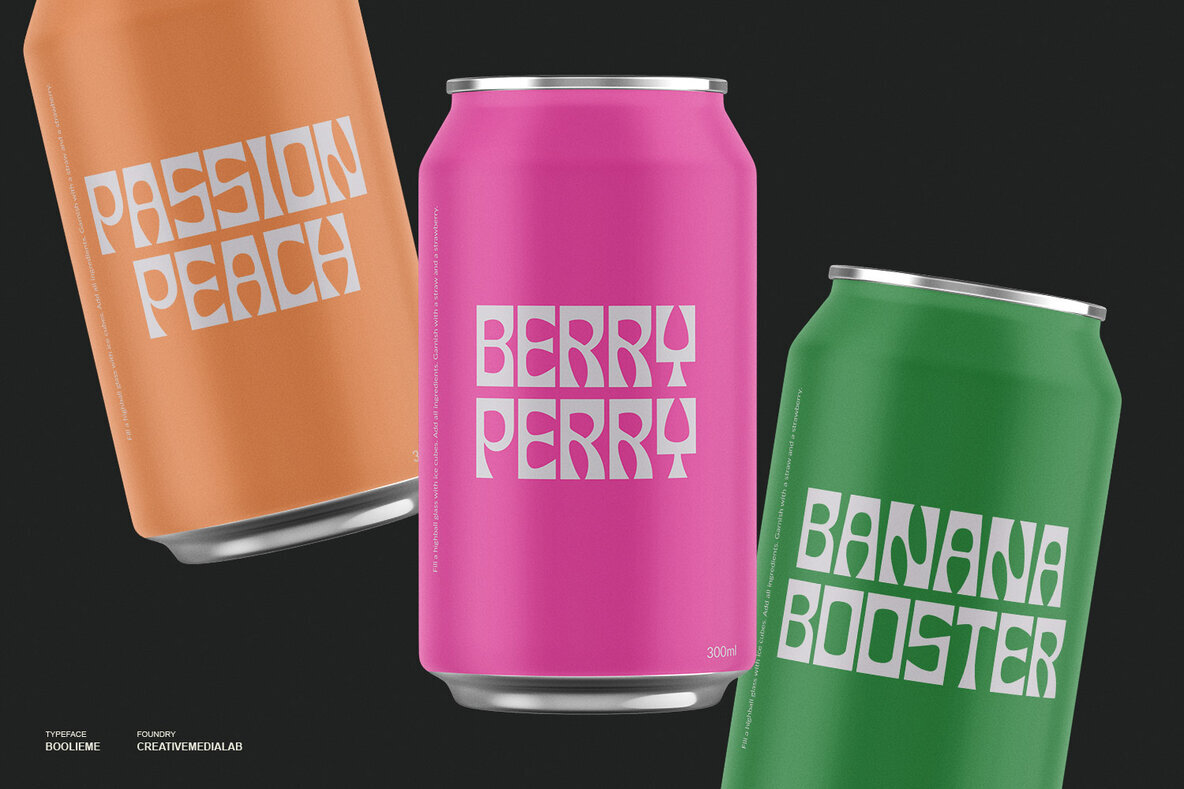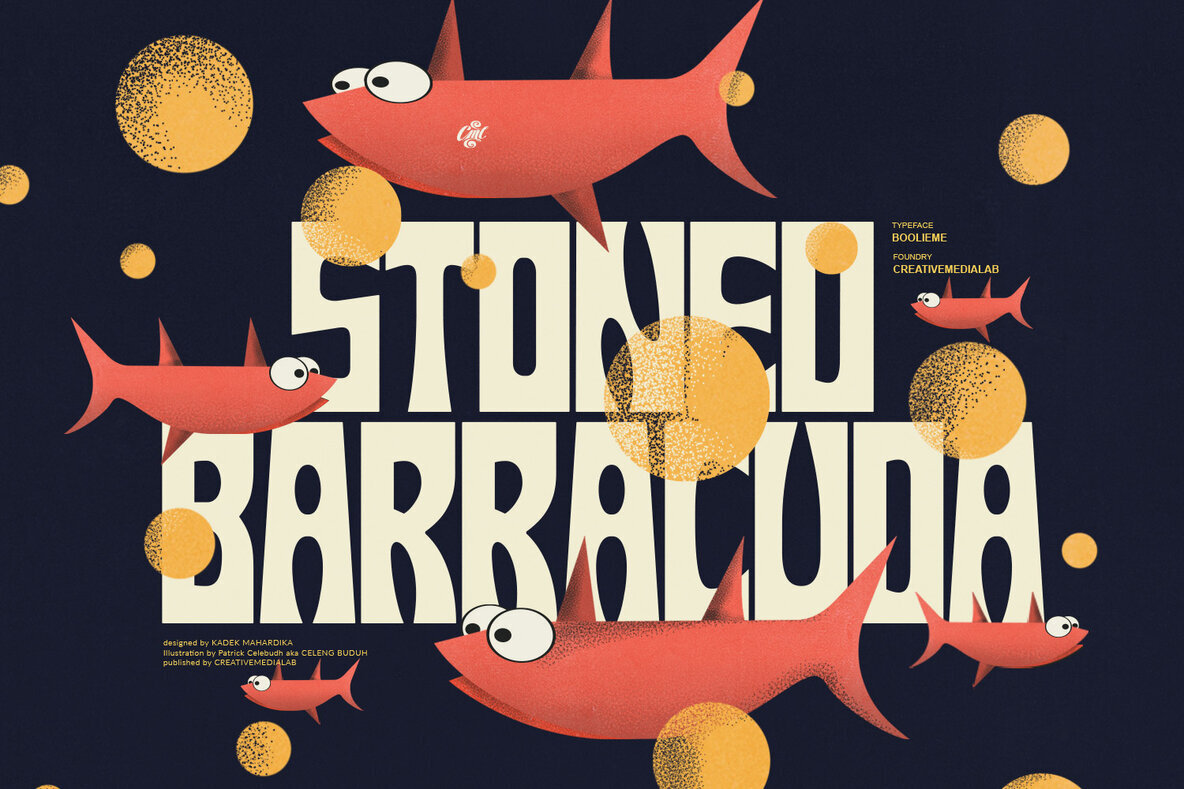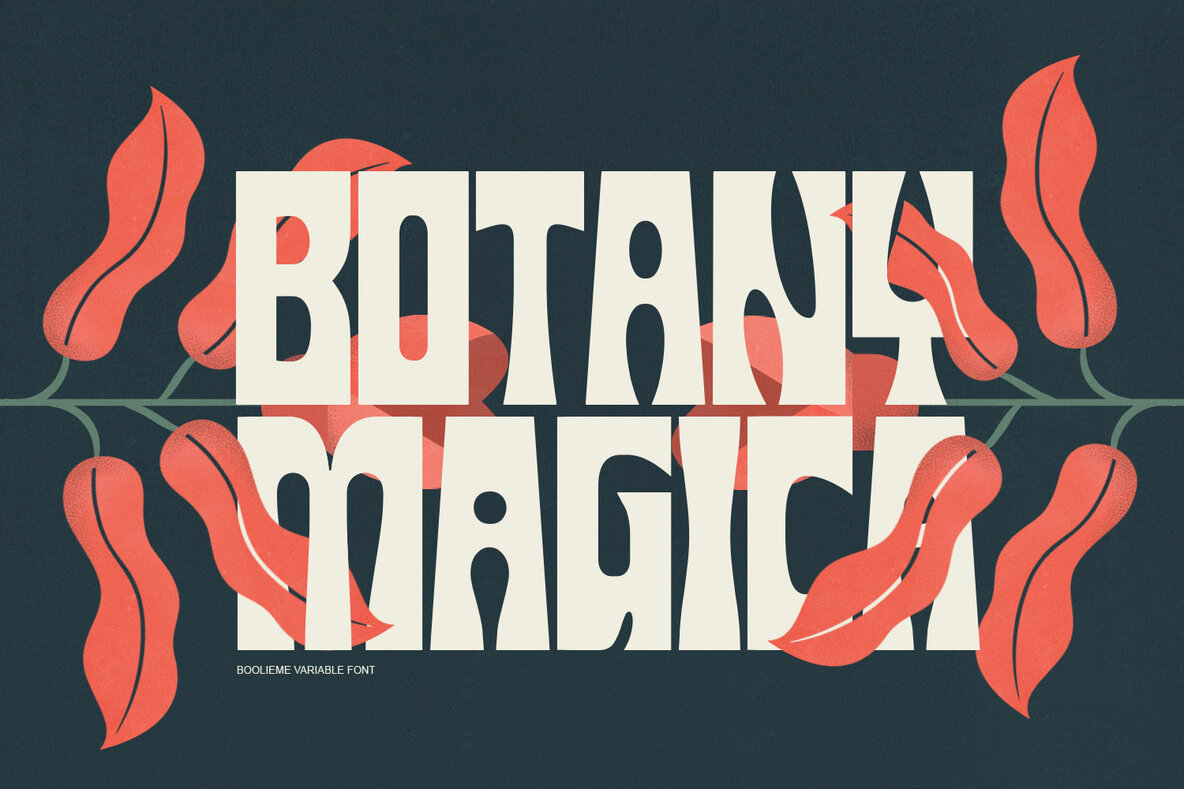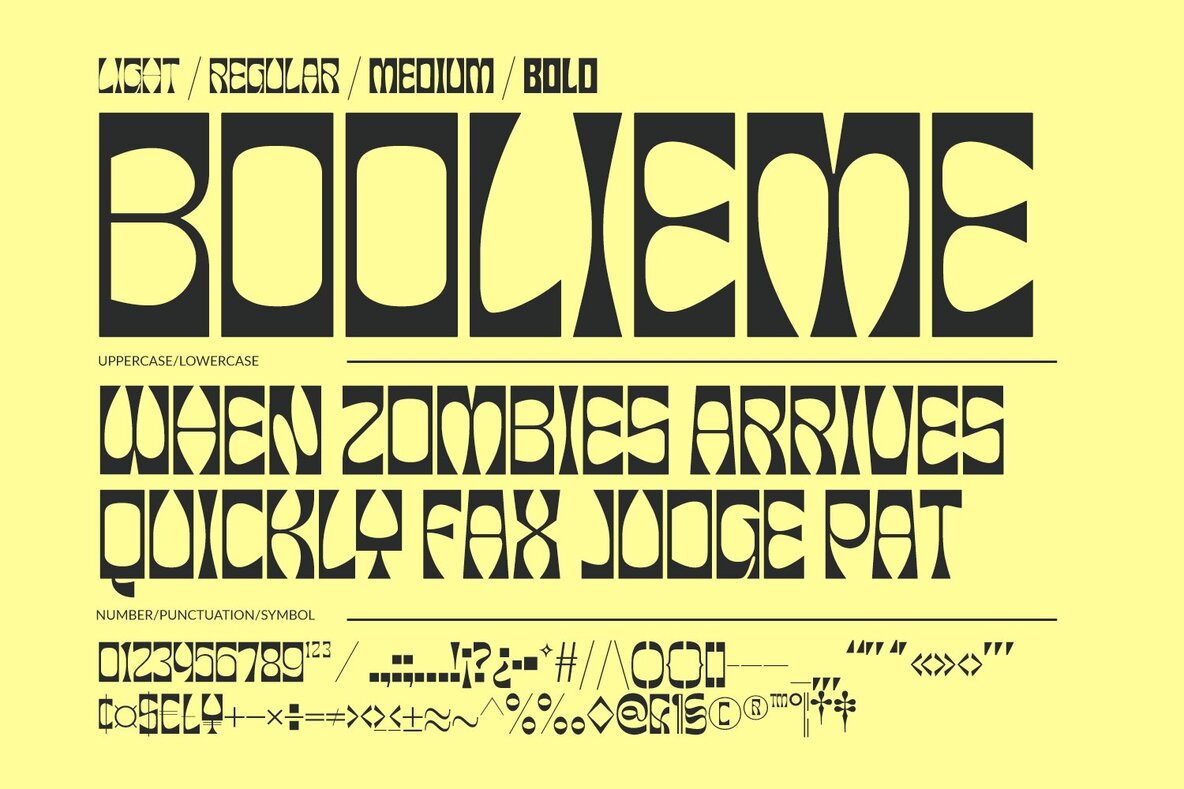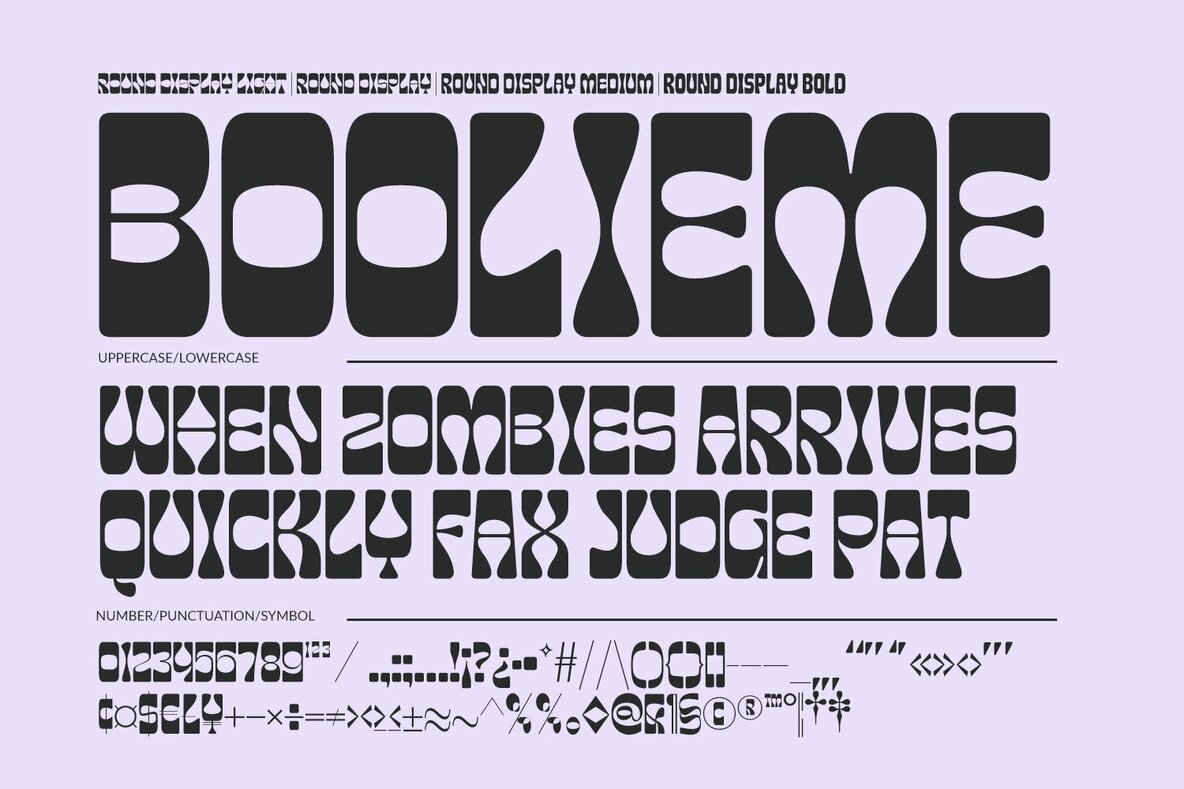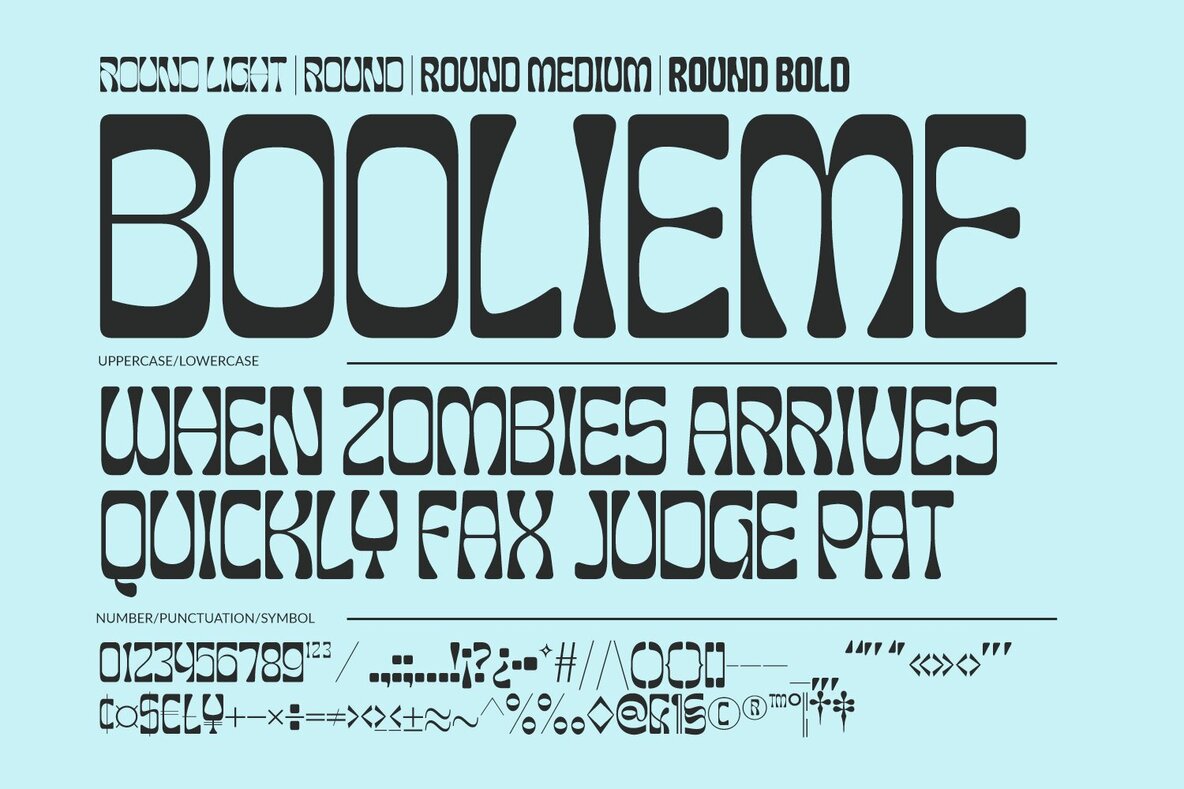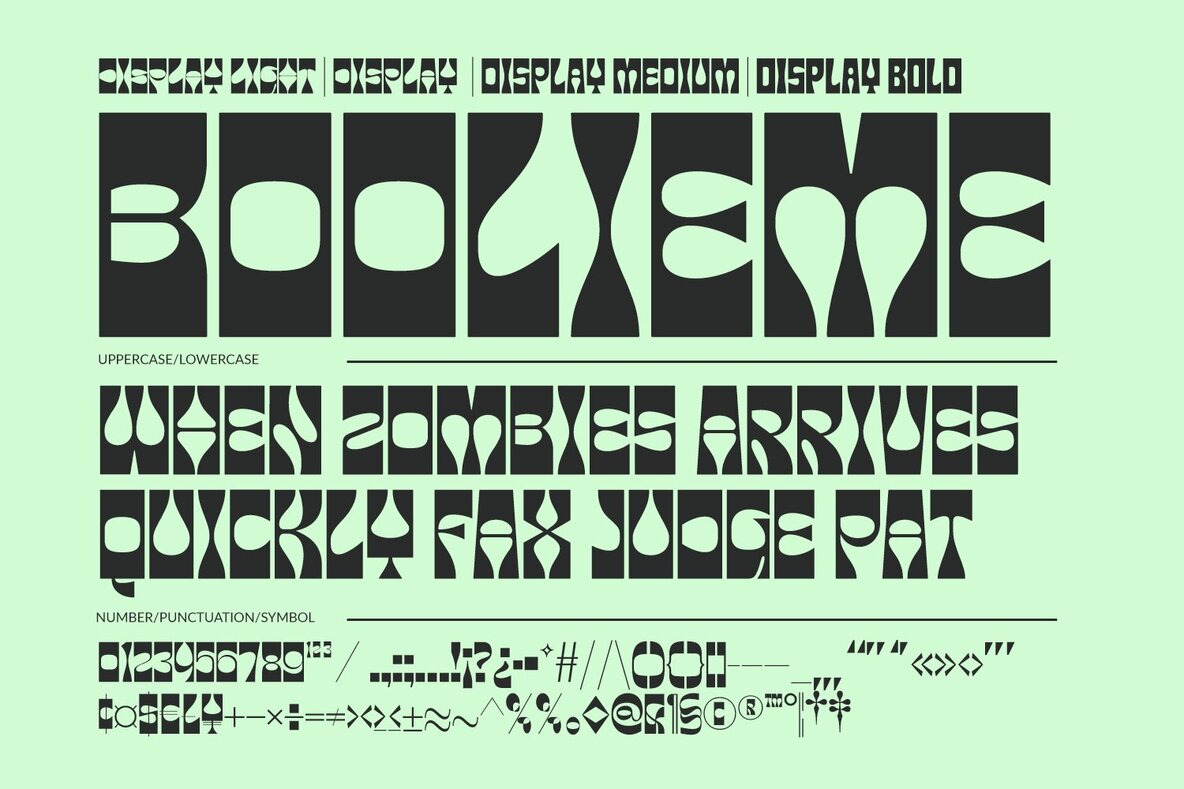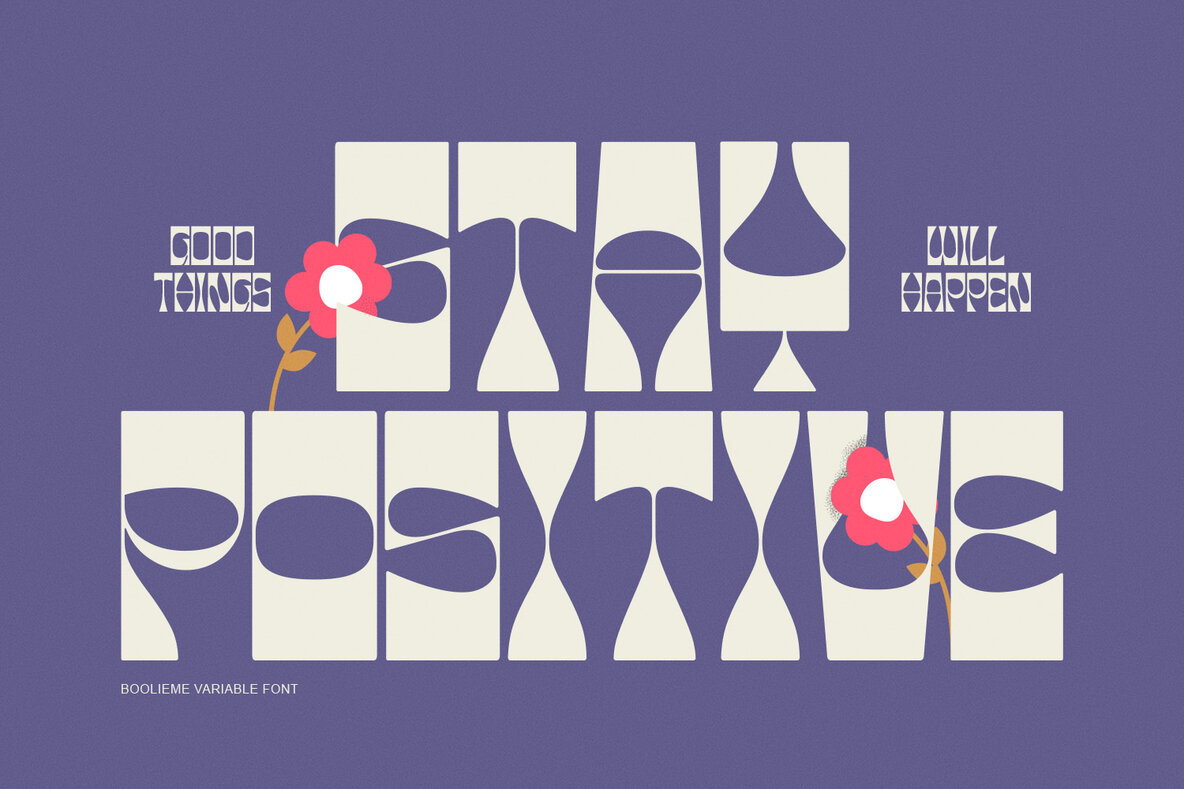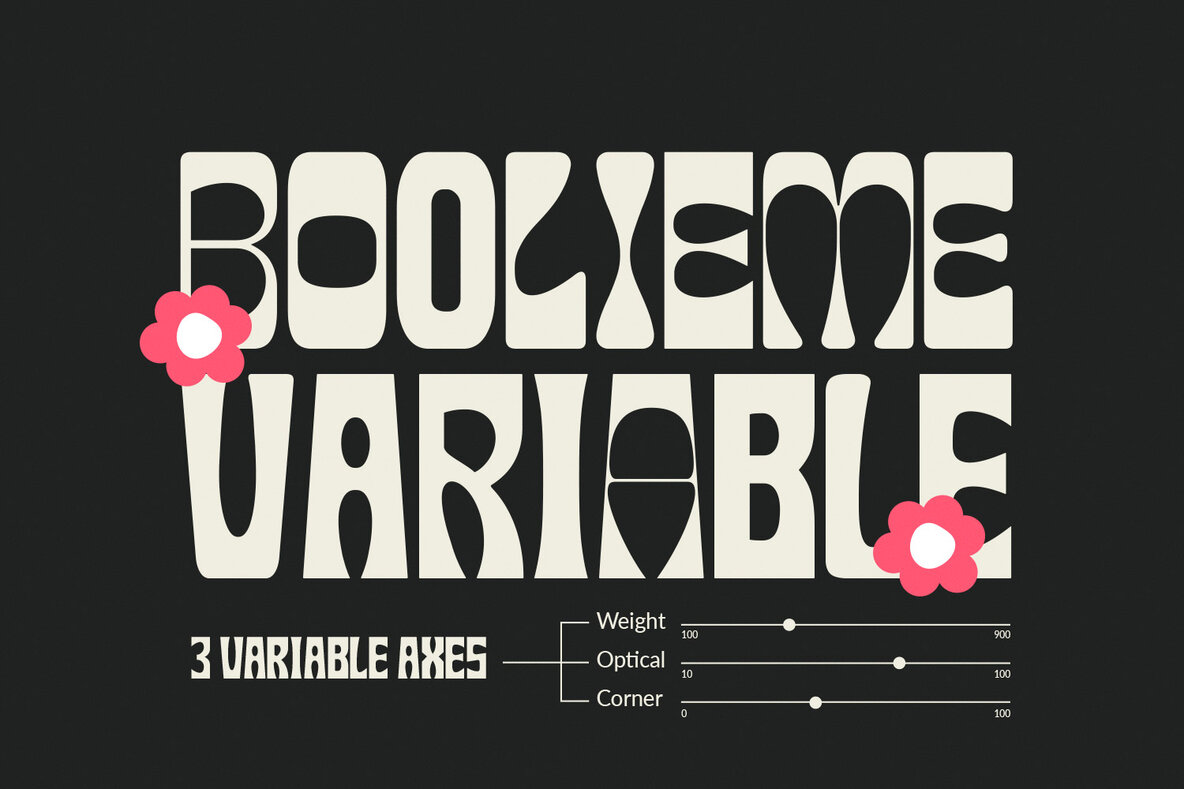
Boolieme Font
Introducing Boolieme, a versatile display font with a fresh retro look. The font is in all capital letters, and it features four unique shape options, ranging from sharp edges to blunt edges. Additionally, it comes in four weights for each style, making it highly adaptable to suit your design theme.